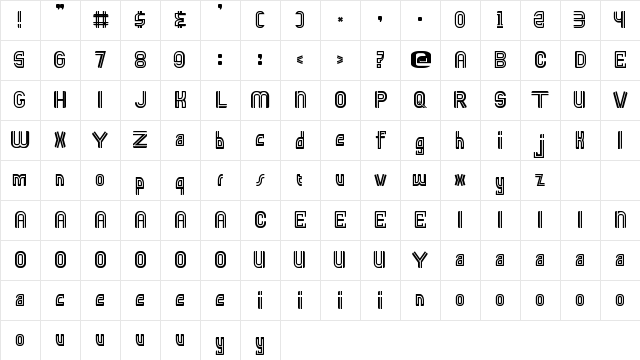
Ahwa Hasyu Regular
Designer: Gilang Ternadho
Design Context for Ahwa Hasyu
Ahwa Hasyu is a composed and adaptable typeface that performs quietly and consistently across a wide range of design contexts.